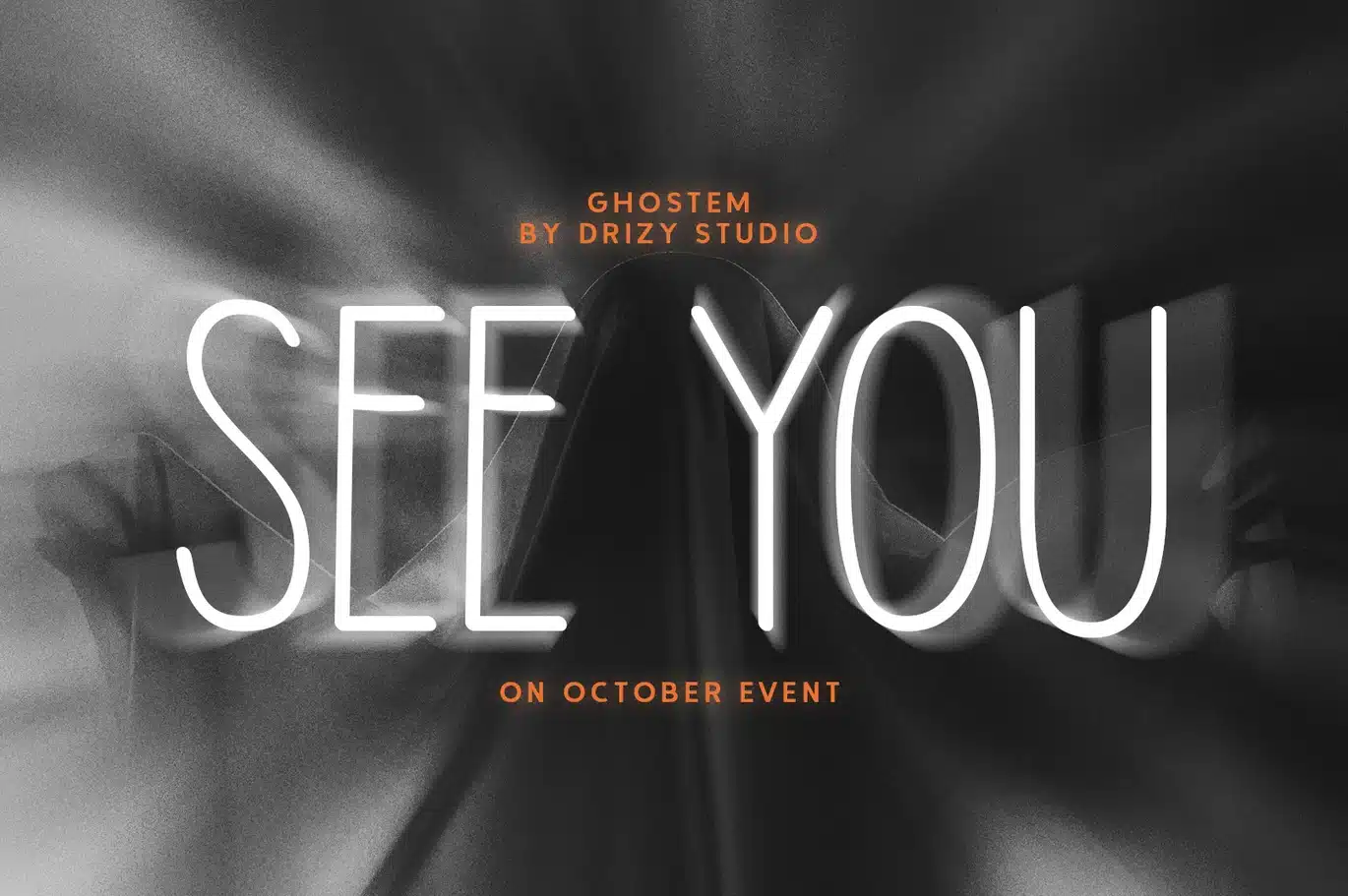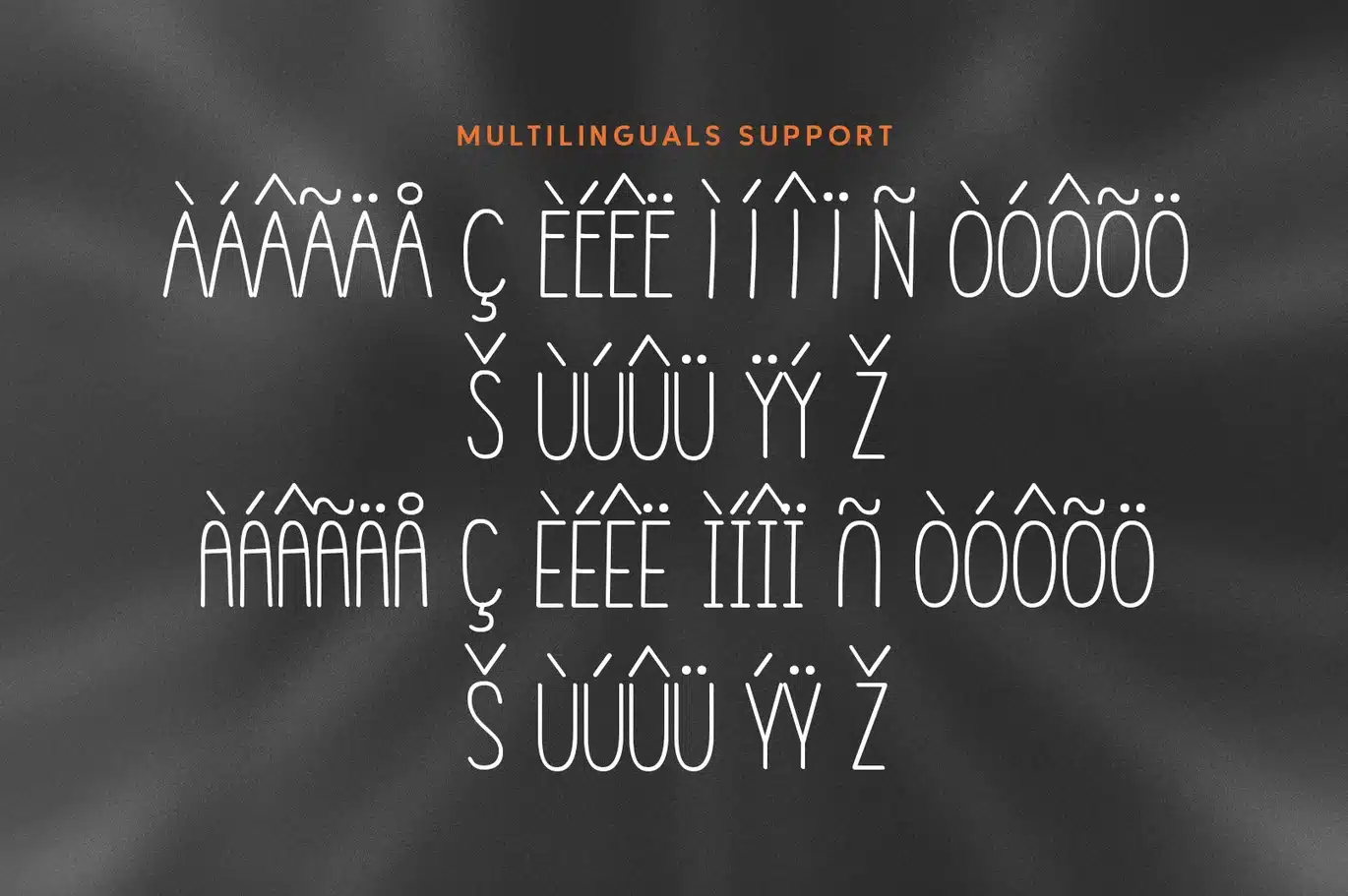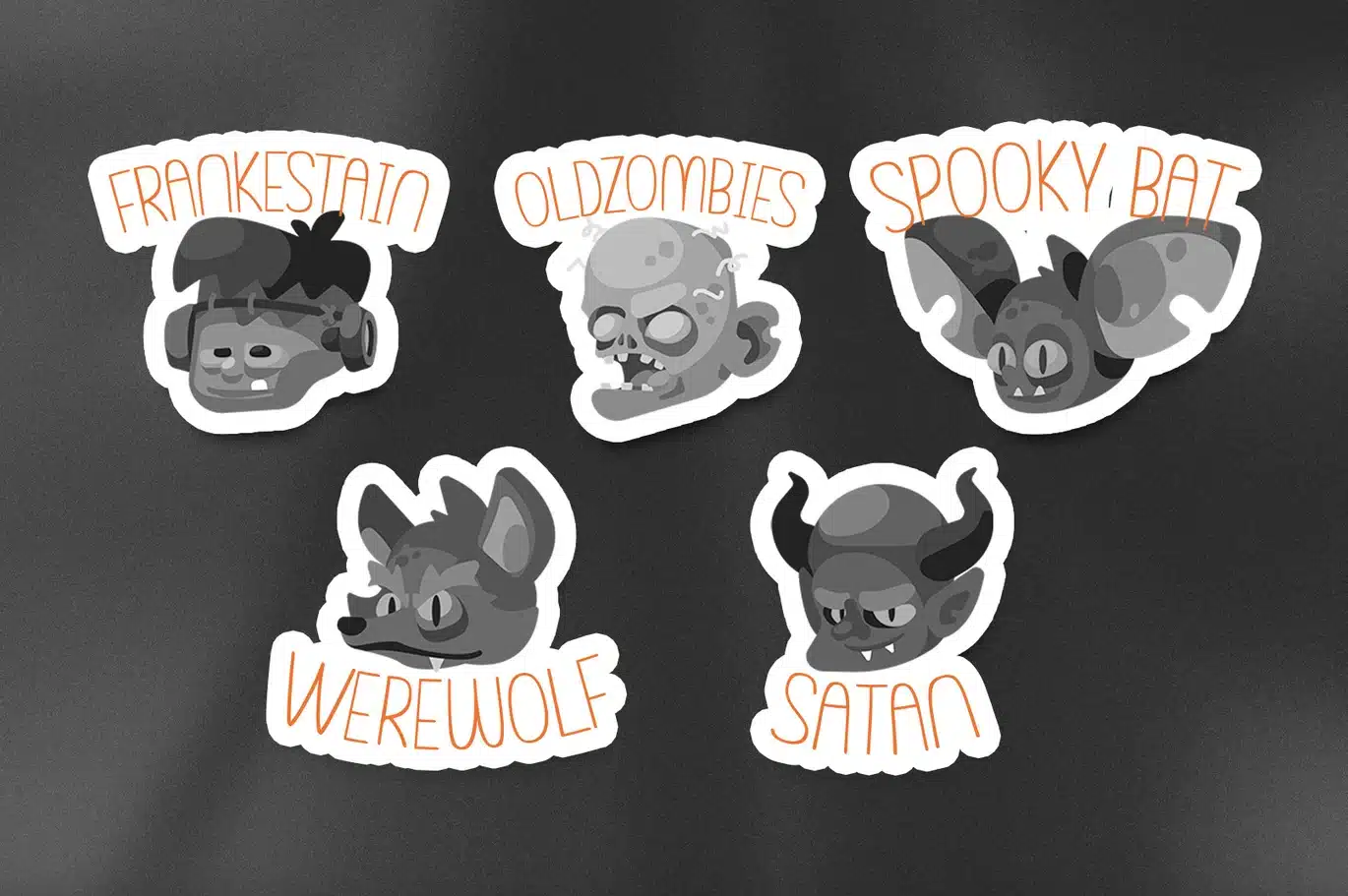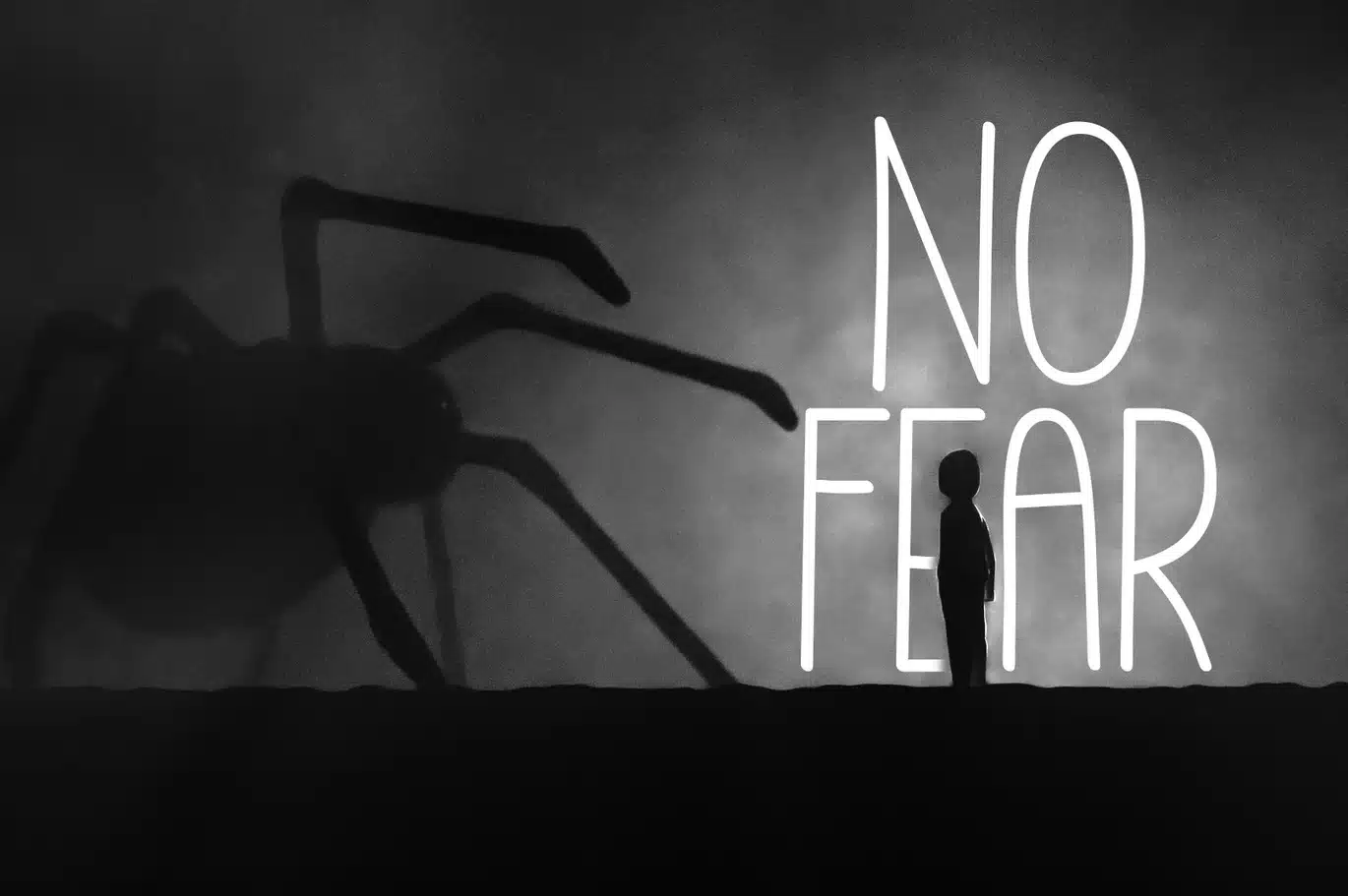
Ghostem – Handwritten Horror Font
Ghostem is a Handwritten Horror Font from Drizy studio. Offering all the basic styles you will need for a spooky and scary theme, especially Halloween project.
Ghostem Features:
Uppercase & Lowercase (Alternates)
Numeral & Punctuation
Multilinguals